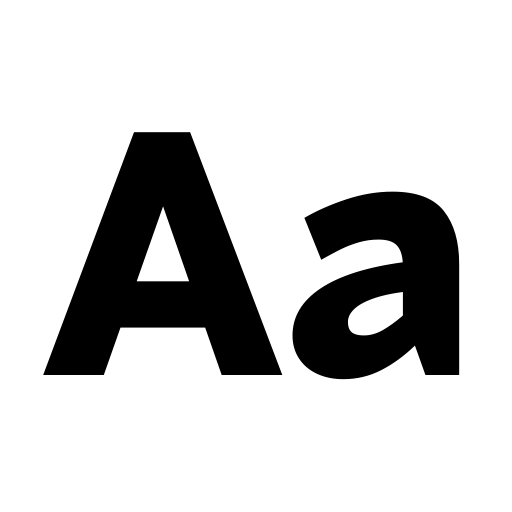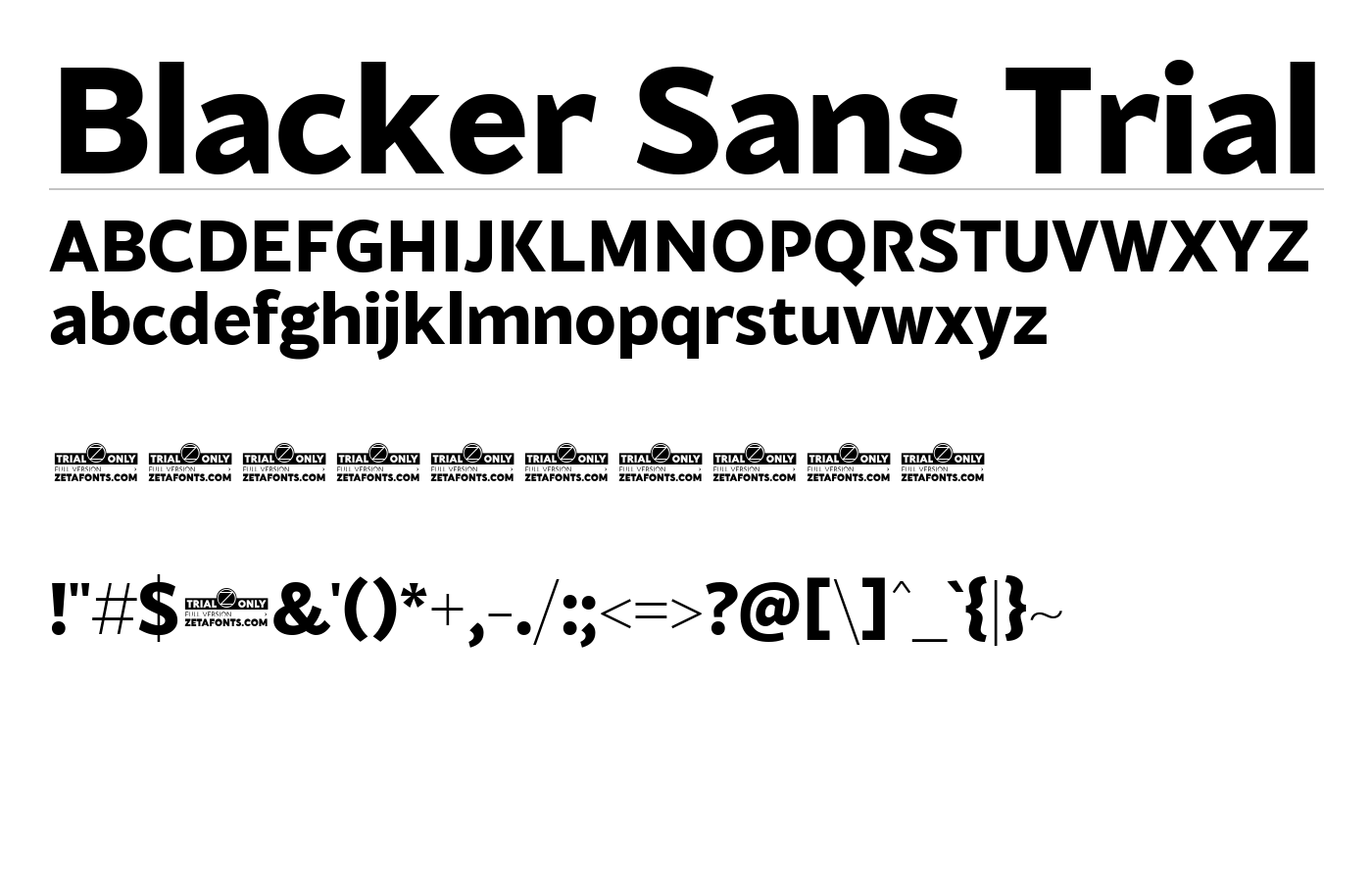
Blacker Sans Trial is a bold, modern sans serif font with a strong, confident presence. Its clean lines, high x-height, and slightly condensed letterforms make it highly readable and effective for headlines, branding, and editorial use, bringing a contemporary and professional feel to any design. This font works well for projects that require clear communication with a sleek, impactful style.
Blacker Sans Trial Font
About Blacker Sans Trial Font
| Font family | Blacker Sans Trial Font |
| Designer | Francesco Canovaro & Cosimo Lorenzo Pancini |